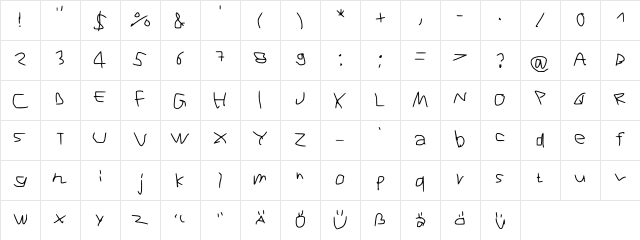
RVn Font of Doom 1 Regular
Design Context for RVn Font of Doom 1
RVn Font of Doom 1 is a composed and adaptable typeface that performs quietly and consistently across a wide range of design contexts.